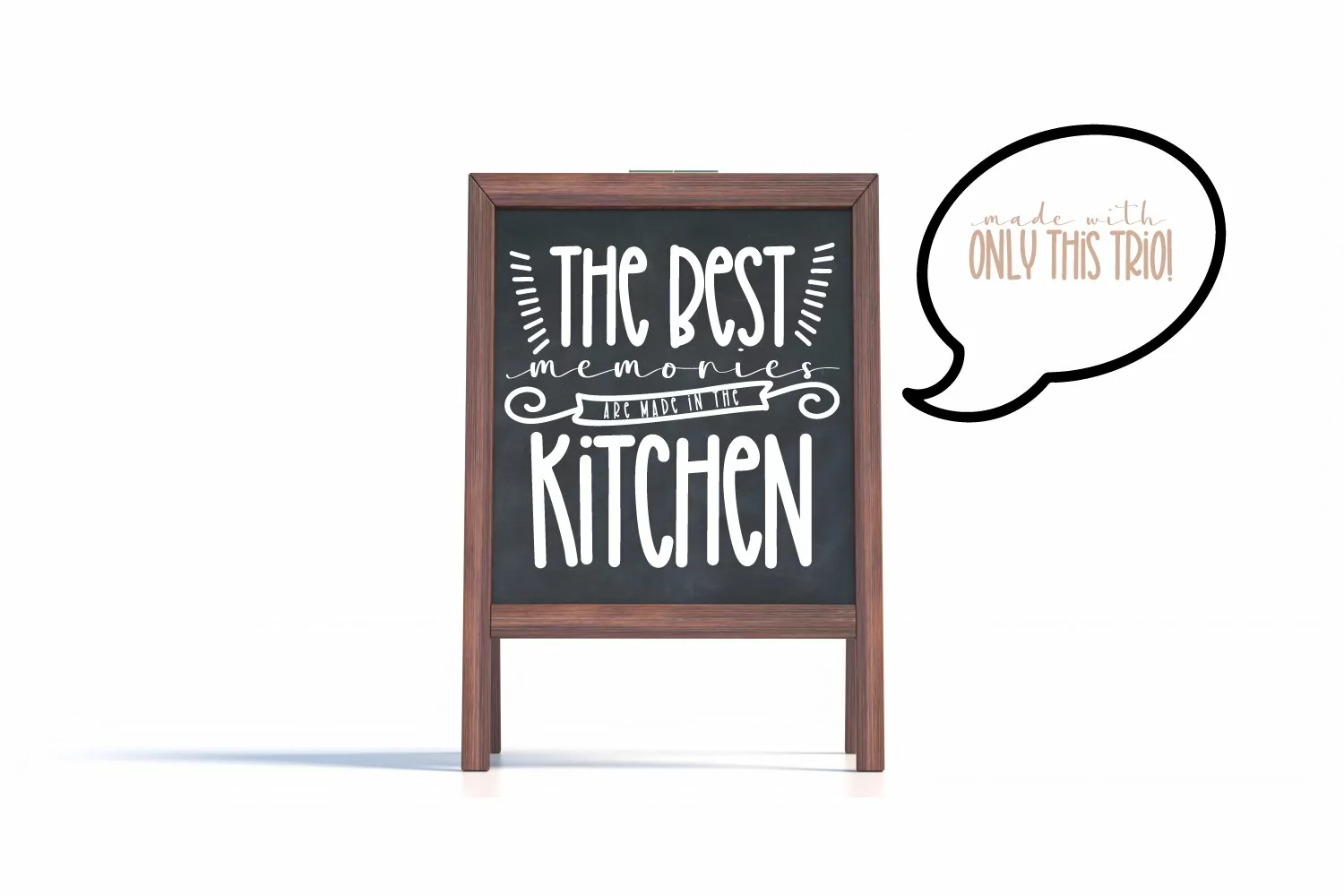
Saturday Font - A Script Print & Doodle Type
This Saturday Font is a trio font with 3 versions! The first version of Saturday font in this trio of fonts is a script, with long exit stems to make a short and wide word. I love the look of this script font on farmhouse type signs. The next font in this Saturday Font Trio is a tall thick monoline sans serif - this mixed caps font is clean and cut friendly, ready to pair with anything! It works great with the rest of the font trio. The last font in the Saturday Font Trio is a doodle font! I focused on doodles here that would work well for designs and word-art type situations. Lots of banners, banner ends, dividers and flourishes.
To get the desired effect on the script of the "wing" that comes in - simply use the underscore (_)
For example, in the display image "saturday" is written _saturday
You'll see that I used this throughout the displays to balance the last letter having an extended stem